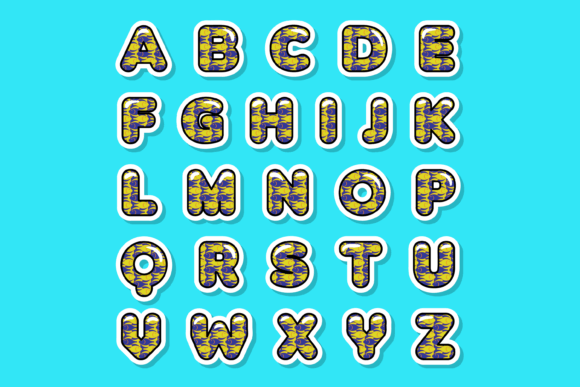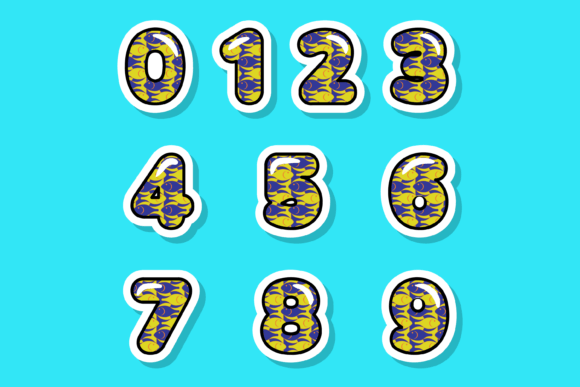
Discover the Fin-tastic World of Fish Pattern Font
Are you a designer, crafter, or DIY enthusiast looking for a unique and captivating font to elevate your creative projects? Look no further than the Fish Pattern Font, an incredibly cool color font that’s sure to make a splash in your designs. In this article, we’ll dive into the world of Fish Pattern Font, exploring its features, benefits, and uses, as well as provide valuable insights on how to get the most out of this amazing font.
What is Fish Pattern Font?
Fish Pattern Font is a stunning color font that features an adorable fish pattern, perfect for adding a playful and whimsical touch to your designs. This font is an Opentype-SVG file, which means it’s a cutting-edge font format that allows for colorful and intricate designs. With Fish Pattern Font, you can create custom designs, DIY crafts, and other creations that require a lovely and eye-catching touch.
Key Features of Fish Pattern Font
- Color Font: Fish Pattern Font is a color font, which means it can display a wide range of colors and gradients, giving your designs a vibrant and dynamic look.
Benefits of Using Fish Pattern Font
So, why choose Fish Pattern Font for your design projects? Here are just a few benefits of using this amazing font:
- Unique and Eye-Catching: Fish Pattern Font is a one-of-a-kind font that will add a touch of personality and whimsy to your designs.
- Versatile: This font is perfect for a wide range of design projects, from custom designs and DIY crafts to papercrafting and scrapbooking.
Tips and Tricks for Working with Fish Pattern Font
Here are a few tips and tricks to help you get the most out of Fish Pattern Font:
- Experiment with Colors: Fish Pattern Font is a color font, so don’t be afraid to experiment with different colors and gradients to create unique effects.
- Combine with Other Fonts: Try pairing Fish Pattern Font with other fonts to create interesting and dynamic text combinations.
- Use in Digital and Print Designs: Fish Pattern Font is perfect for both digital and print designs, from social media graphics to custom stationery.
| Font Name | Fish Pattern Font |
| Author | JUSTTYPE |
In conclusion, Fish Pattern Font is an amazing color font that’s perfect for designers, crafters, and DIY enthusiasts looking to add a touch of whimsy and personality to their designs. With its unique fish pattern, compatibility with popular design software, and ease of use, Fish Pattern Font is sure to become a favorite in your font library. So why wait? Dive into the world of Fish Pattern Font today and discover a fin-tastic way to elevate your designs!